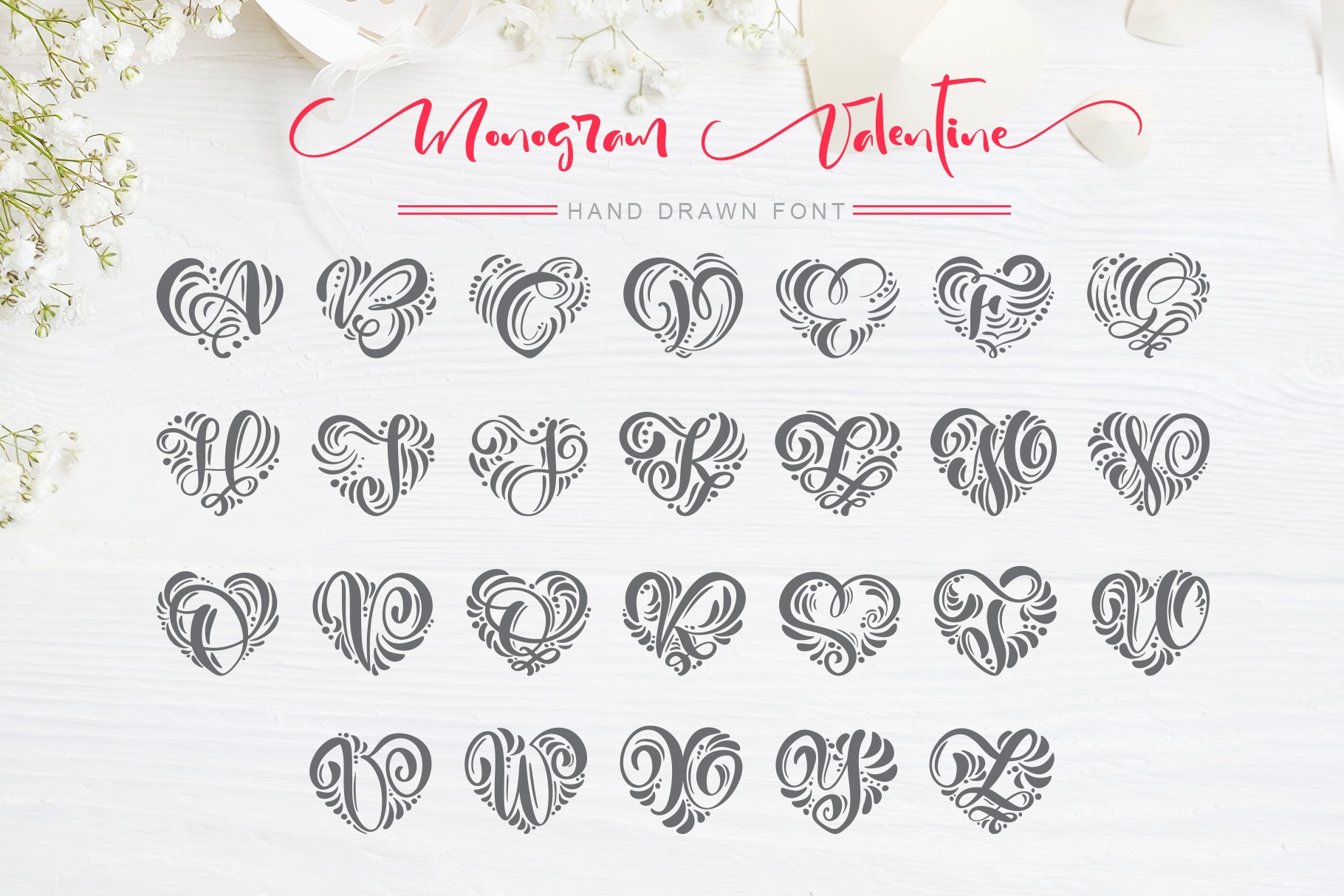
Monogram Valentine Font
Monogram Valentine Font is perfect for romantic wedding invitations, personalized love letters, Valentine's Day campaigns, couple's monogram designs, romantic jewelry branding, intimate anniversary materials, love-themed greeting cards, personalized romantic gifts, and heartfelt celebration stationery.
What makes Monogram Valentine Font exciting is its enchanting ability to transform initials and letters into romantic works of art that celebrate love through elegantly intertwined letterforms designed specifically for creating beautiful monograms. The font features graceful curves with romantic flourishes that perfectly capture the intimate connection between two hearts, making every monogram a symbol of enduring love and personal devotion. Its sophisticated romantic character and personalization potential make it perfect for brands that want to communicate love, intimacy, and the timeless tradition of creating personalized expressions of affection while crafting memorable experiences that celebrate life's most romantic moments.
Monogram Valentine Font family includes various romantic weights and ornamental styles designed specifically for monogram creation, often featuring decorative alternates and love-inspired embellishments. The family may include heart symbols, romantic flourishes, and elegant connecting elements that enhance the font's monogram capabilities, providing designers with comprehensive options for creating beautiful personalized typographic compositions that celebrate romantic relationships and special occasions.